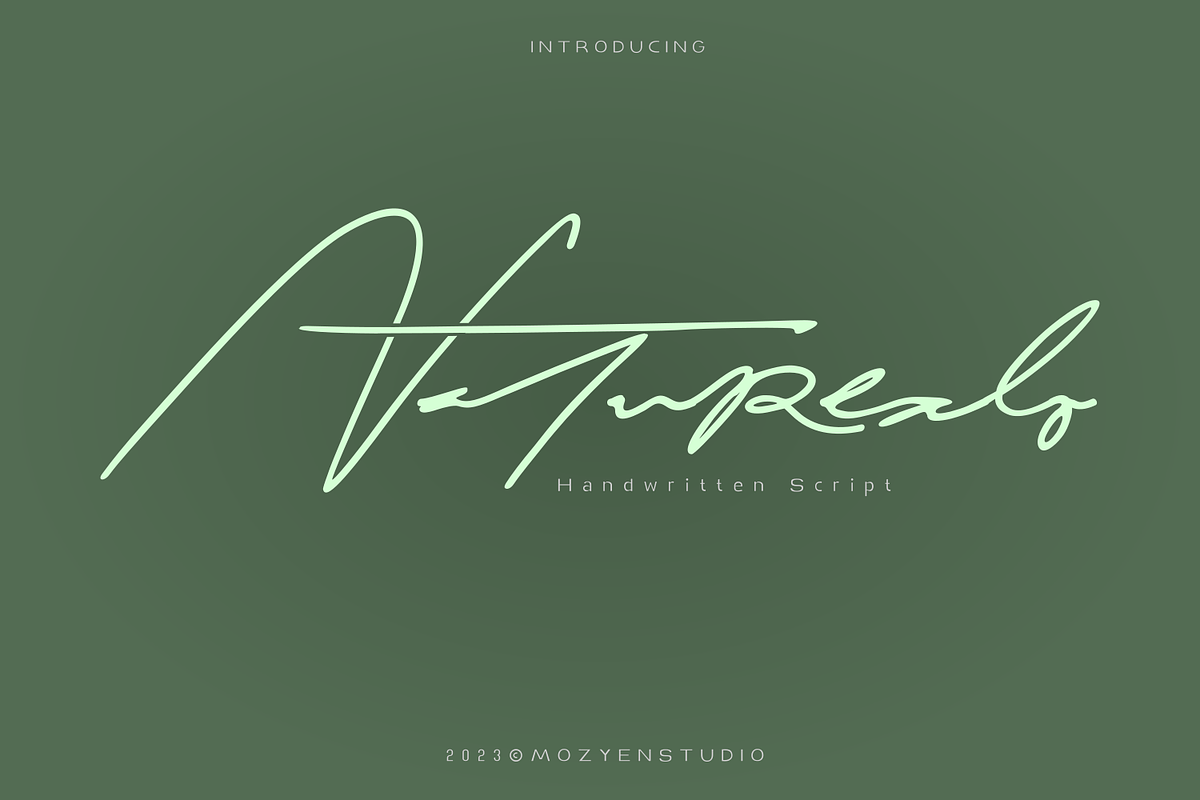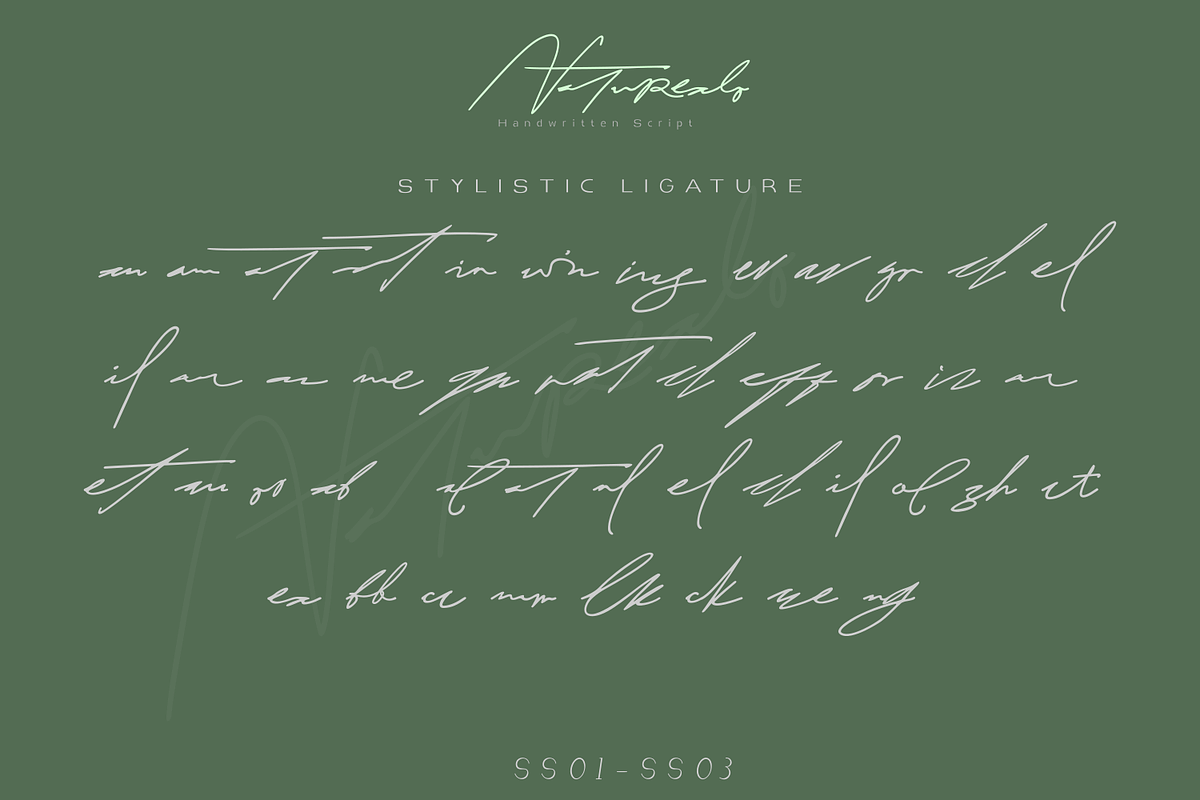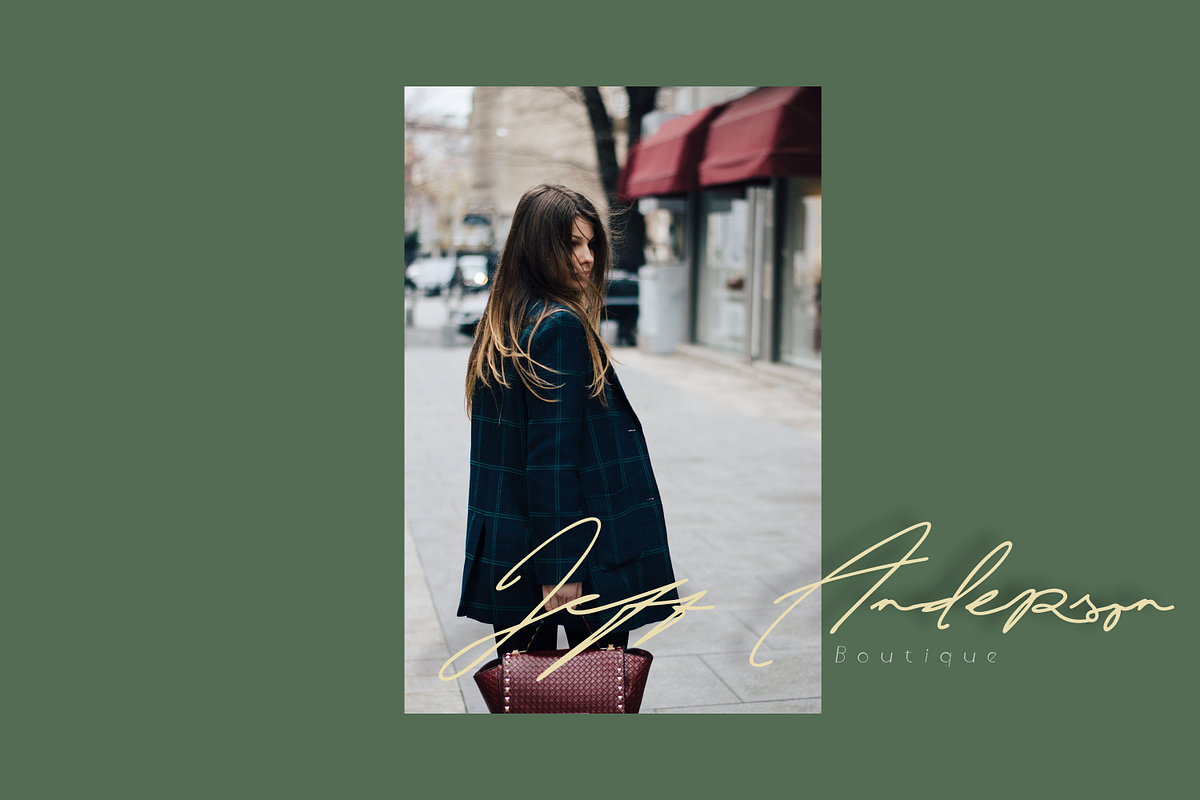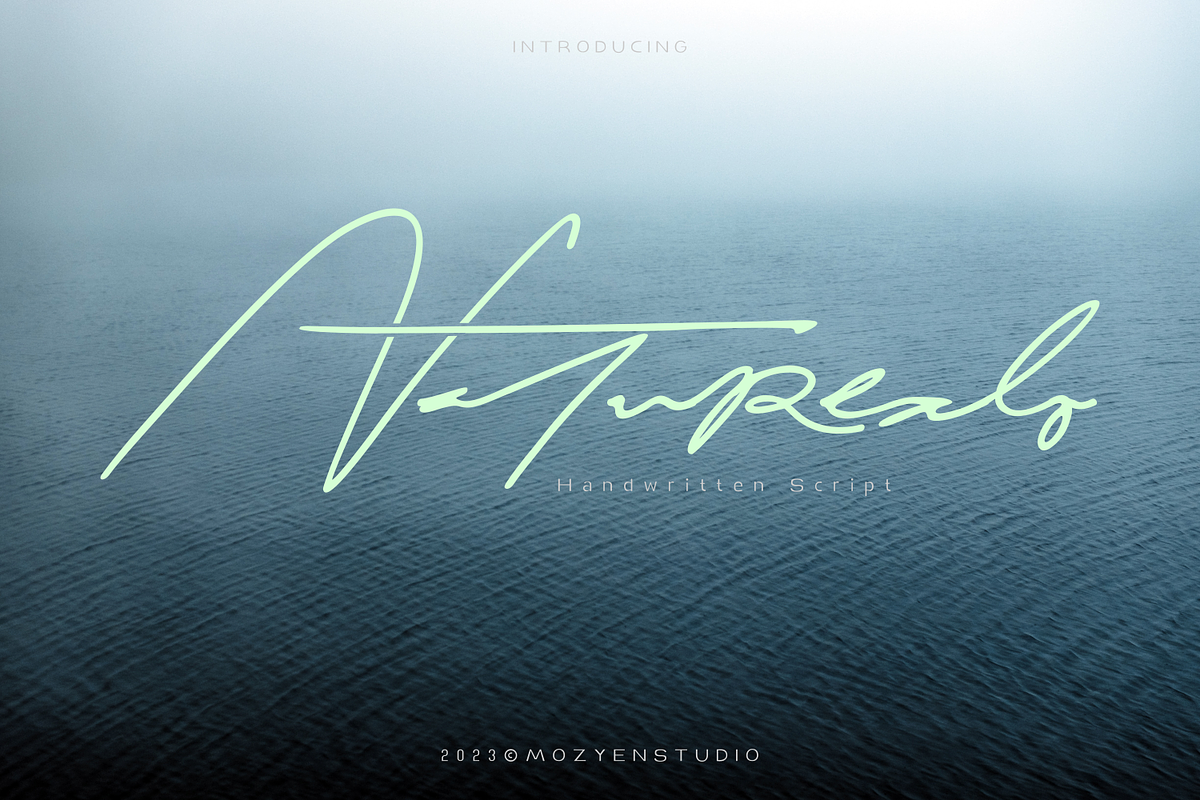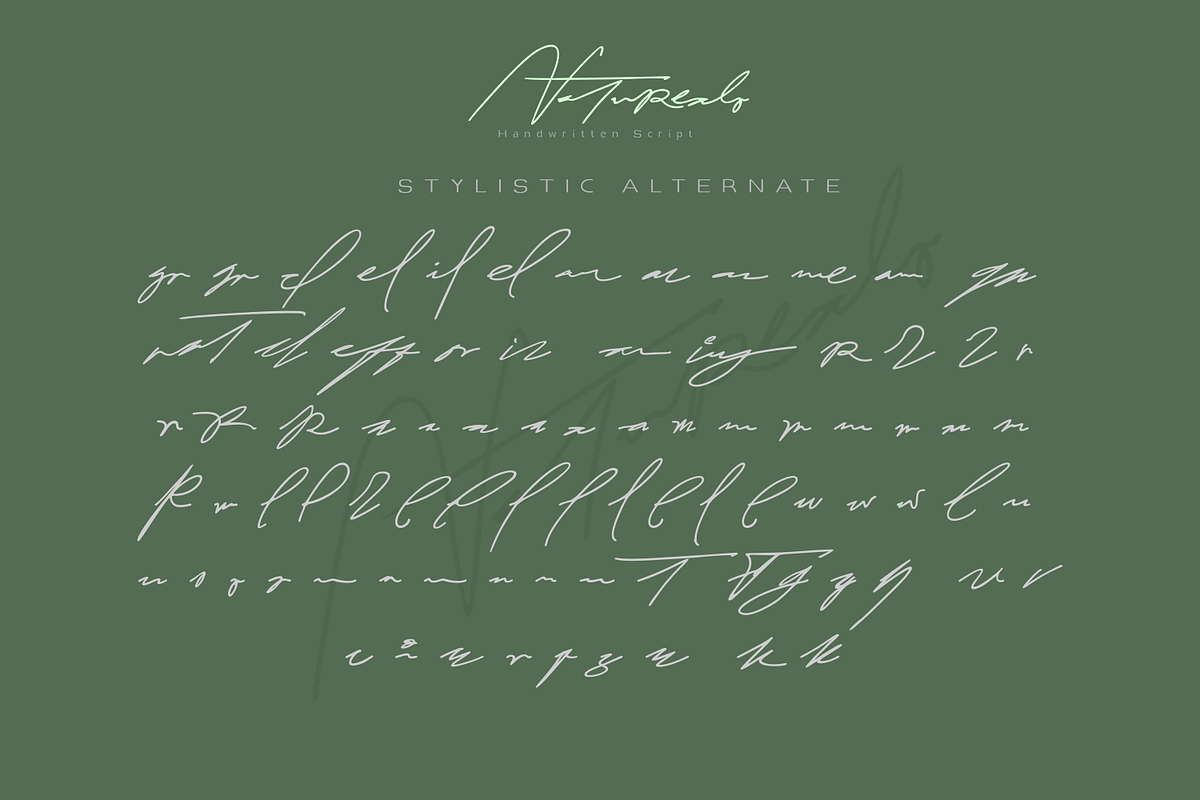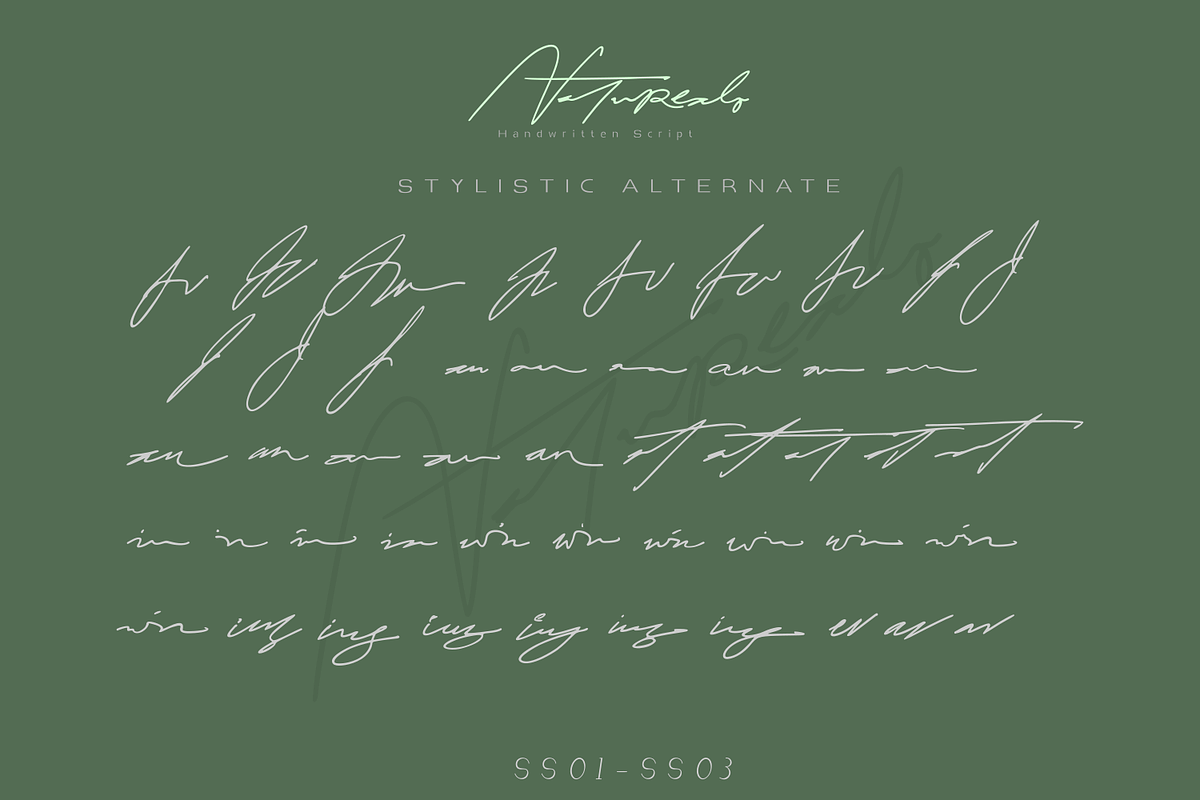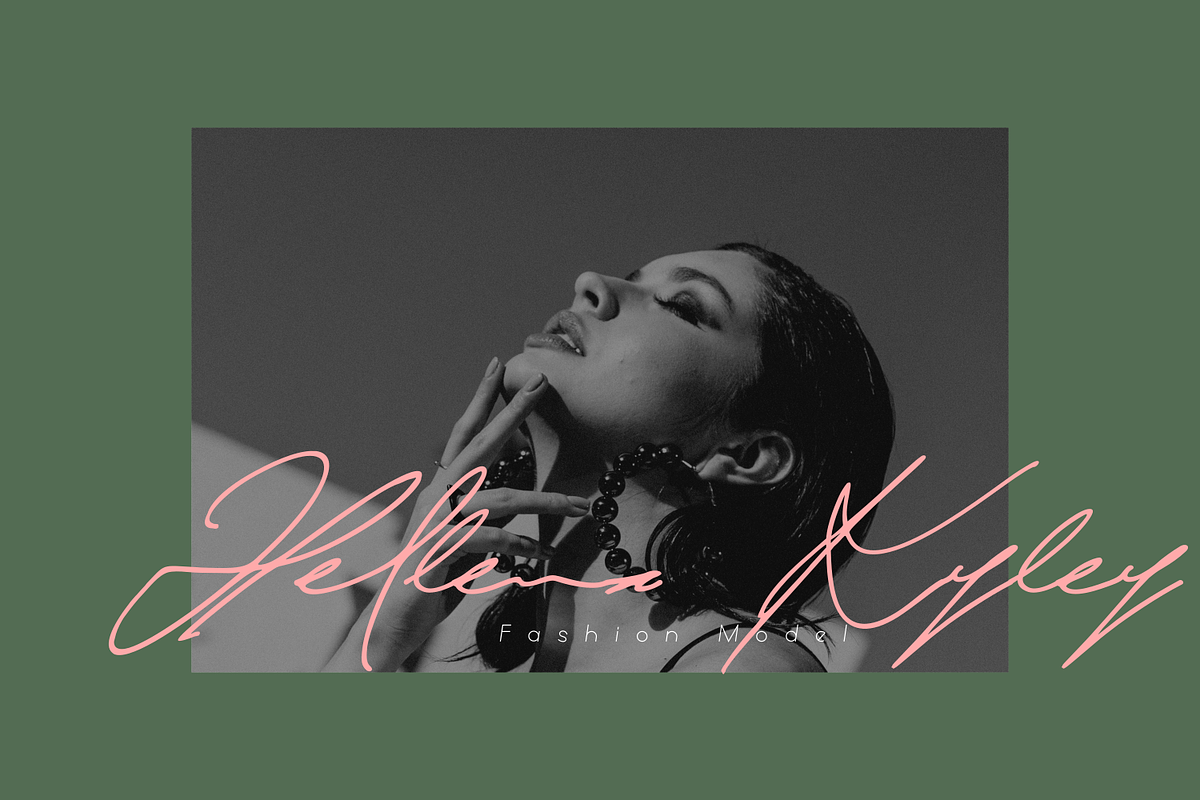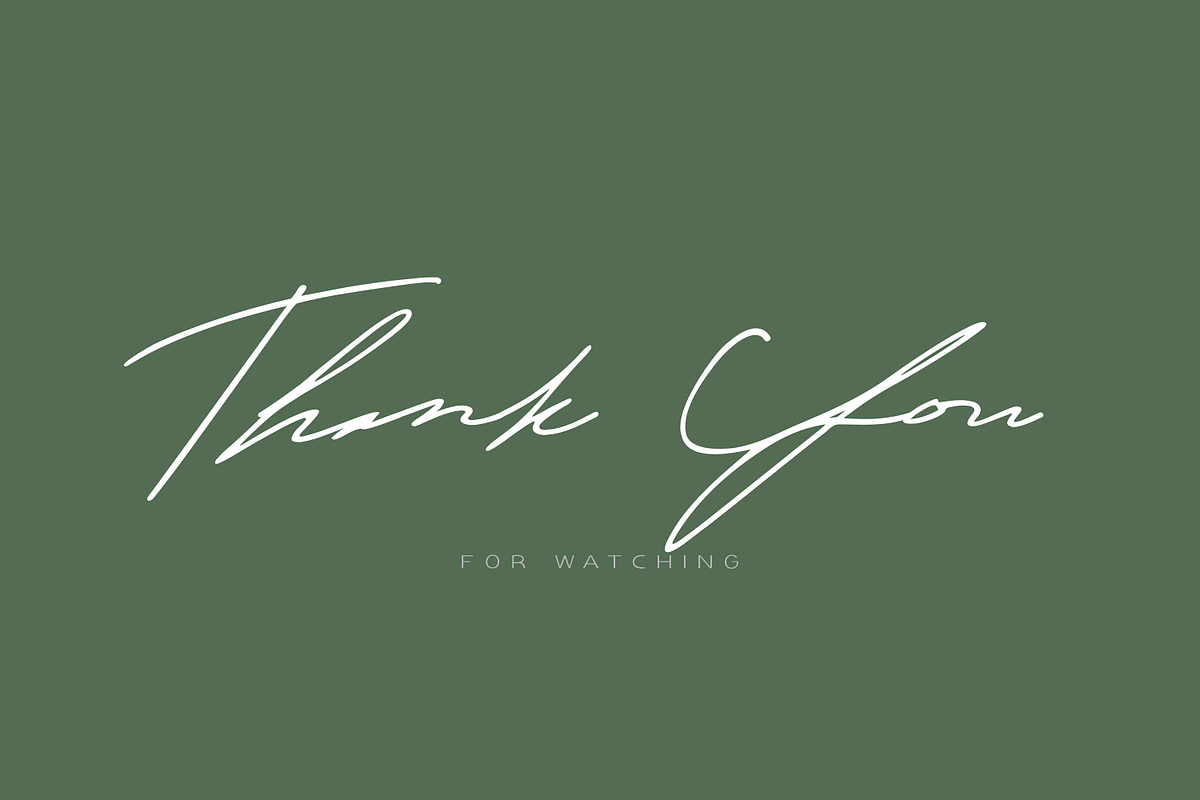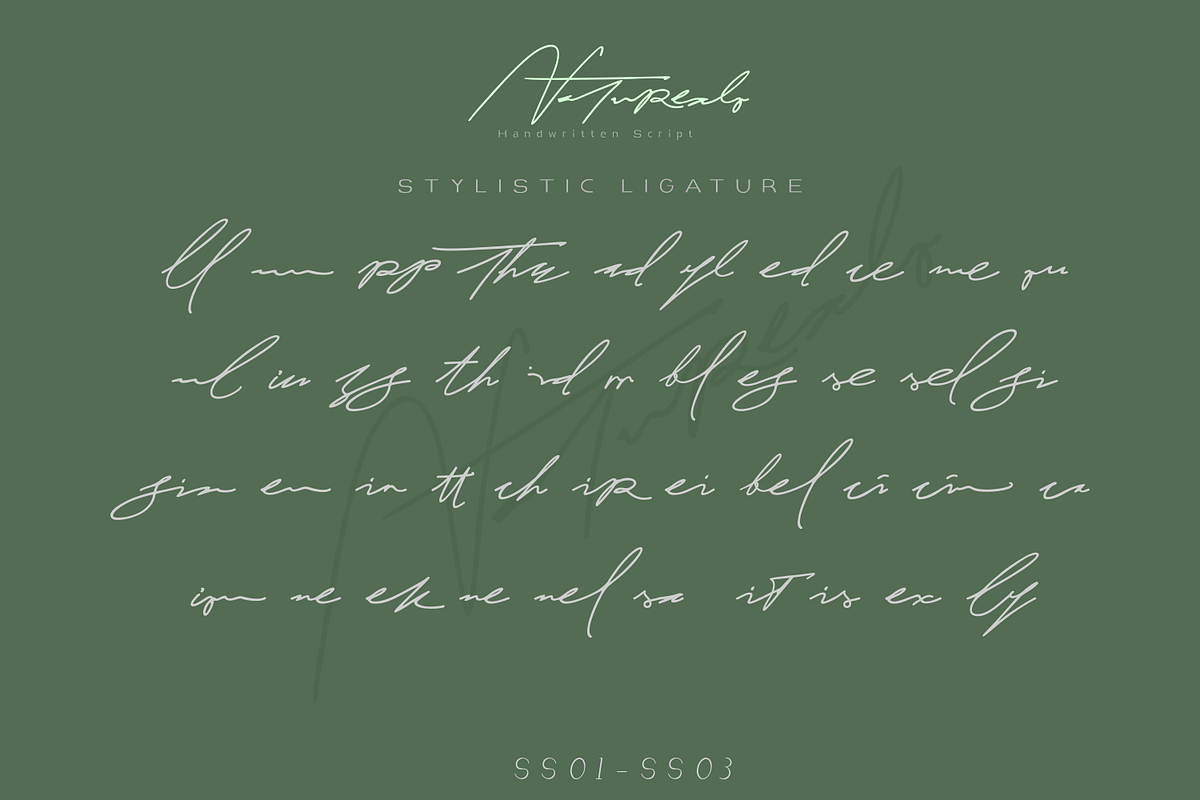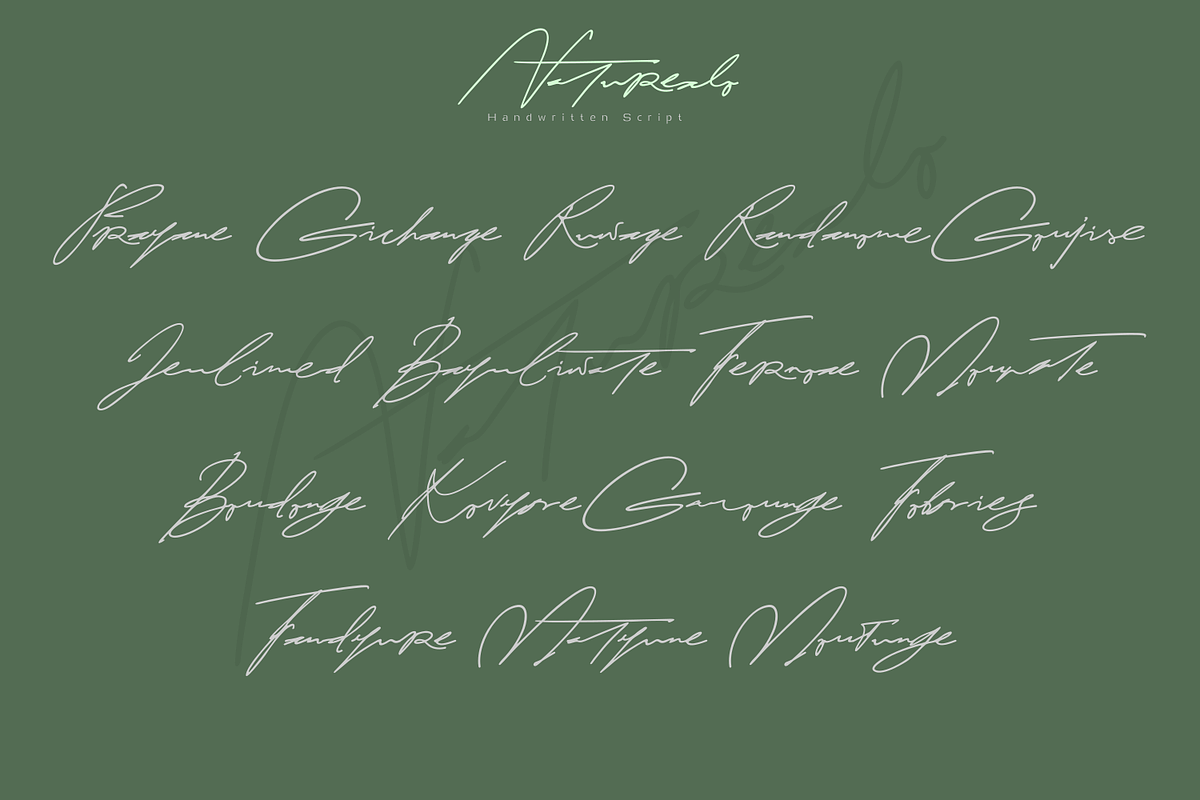
Naturealo | Handwritten Script
Introduce Naturealo Signature Script. This is perfect for your feminine design, you can also make a branding such as cosmetics products, Branding photography, invitation designs or your trademark. Naturealo is an elegant and flowing handwritten font. It is PUA encoded which means you can access all of the glyphs and swashes with ease! It features a varying baseline, smooth lines, gorgeous glyphs and stunning alternates. It maintains its classy calligraphic influences while feeling contemporary and fresh. Fall in love with this font and bring your projects to the highest levels!
Available: -Uppercase -Lowercase -Numeral and punctuation -Multilingual support -Stylistic ligature : complete 2 ligatures and several 3 ligatures -Stylistic character alternate -access with PUA encoded -SS01,SS02,SS03.
Stylistic Ligature : an am at rt in win ius ev av gr cl el il ar ac me ga rat cl eff or iz ar et au oo ab al at nl el cl il ol sh ct ea bb cc mm lk ck ee ng ll nn pp the ad yl ed ce me ou ul iu ss th id rr bl es se sel si sin en in tt ch ir ei be bel ci cin ly ion ek ne nel sa it is ex ca
Stylistic Alternate : an at rt in win ius ev av gr r a m l u w o n t g k v c i f z e